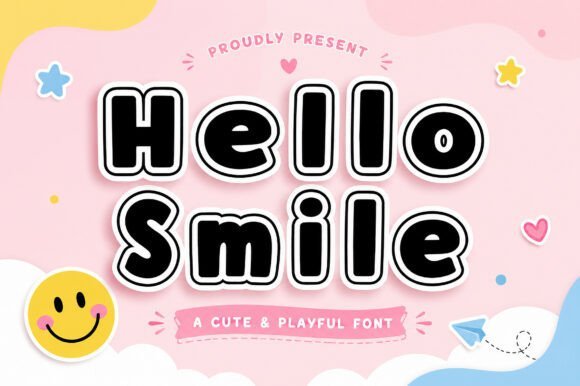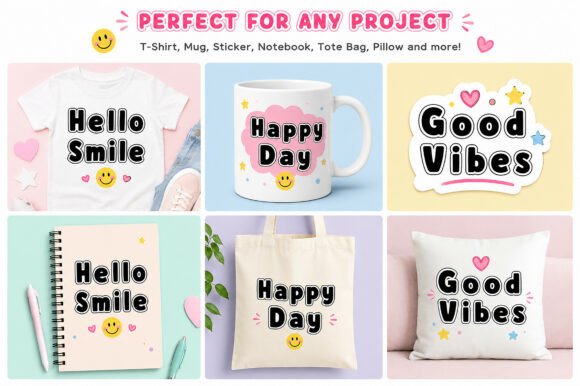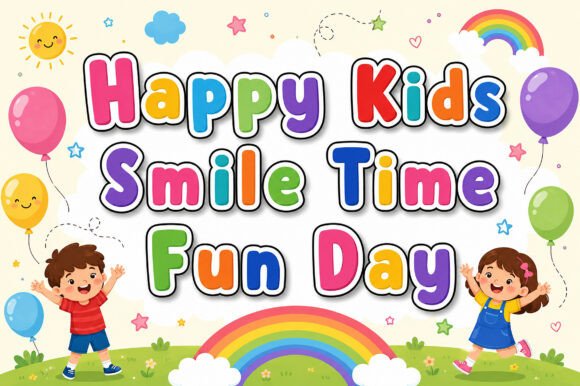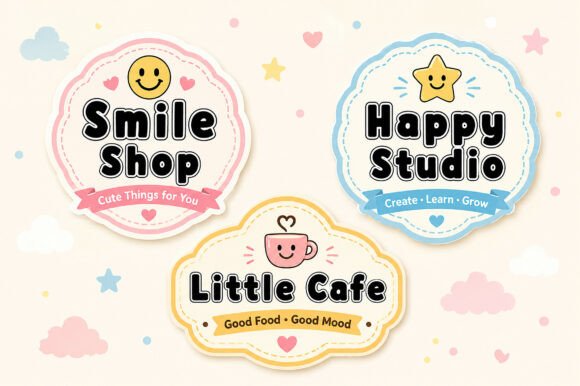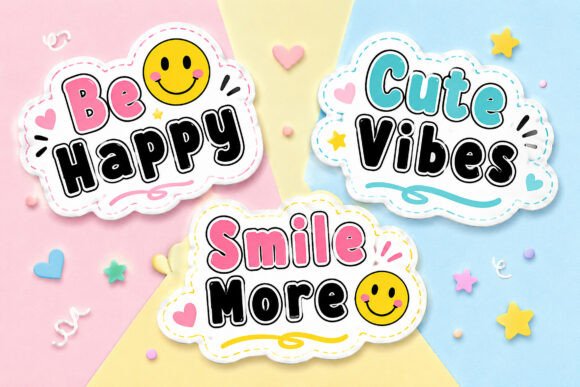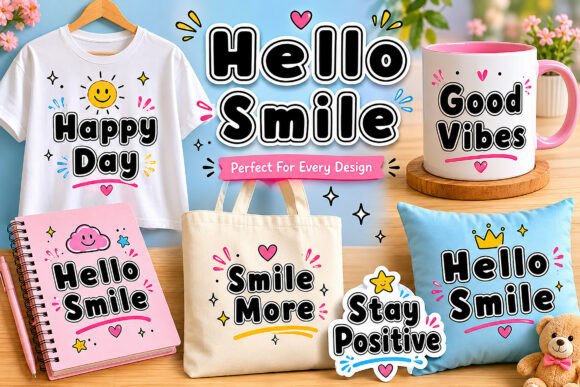
Adding a Smile to Your Design: The Joy of Hello Smile Font
Have you ever stared at a blank canvas, unsure of where to begin, until a spark of creativity hits you? It’s that moment when the ideas start flowing, and your imagination runs wild. For designers, it’s the thrill of bringing a project to life, and for many, it’s the perfect opportunity to incorporate a font that adds a touch of personality and whimsy.
That’s where the Hello Smile Font comes in – a delightful display font designed to spread joy and fun in your creative endeavors. With its bold, rounded letterforms and smooth curves, this font is the perfect addition to children’s designs, branding, and more. Its clean, bubbly style makes it easy to read while maintaining a unique and lovable character that stands out in both digital and print applications.
- Font Family: Hello Smile is a sans-serif font family designed to convey a friendly and approachable feel.
- Font Sizes: Offers a range of font sizes, from 8pt to 72pt, making it suitable for various applications, including digital and print media.
- Resolution: Designed to be highly legible at various resolutions, including low-resolution displays and high-quality print.
- Unique Characteristics: The font’s unique smile-like design elements, such as the curved lines and rounded edges, create a friendly and approachable atmosphere.
Hello Smile Font Review
First of all, I want to say that I’m a big fan of the Hello Smile Font. It’s a great choice for any project that needs a friendly, approachable look. The ✨ clean lines and rounded edges give it a modern feel that works well for both digital and print applications.
- The font is highly legible, even at smaller sizes, making it perfect for body text and headlines.
- The ✨ font’s versatility means it can be used in a wide range of contexts, from logos to packaging to digital interfaces.
- The font’s friendly, approachable feel makes it a great choice for projects that need to convey a sense of warmth and welcomingness.
However, there are some limitations to consider. The ⚠️ font’s rounded edges can make it look a bit too playful for some projects, and it may not be the best choice for projects that need a more formal or serious tone.
Overall, I think the Hello Smile Font is a great choice for projects that need a friendly, approachable look. While it may not be the best choice for every project, it’s definitely worth considering for projects that need to convey a sense of warmth and welcomingness.
I would give the Hello Smile Font 4 out of 5 stars. It’s a great font that is sure to add a touch of personality to any project.
The Hello Smile Font is a versatile font that can be used for a variety of purposes, including:
- Marketing materials, such as brochures and flyers
- Social media graphics and posts